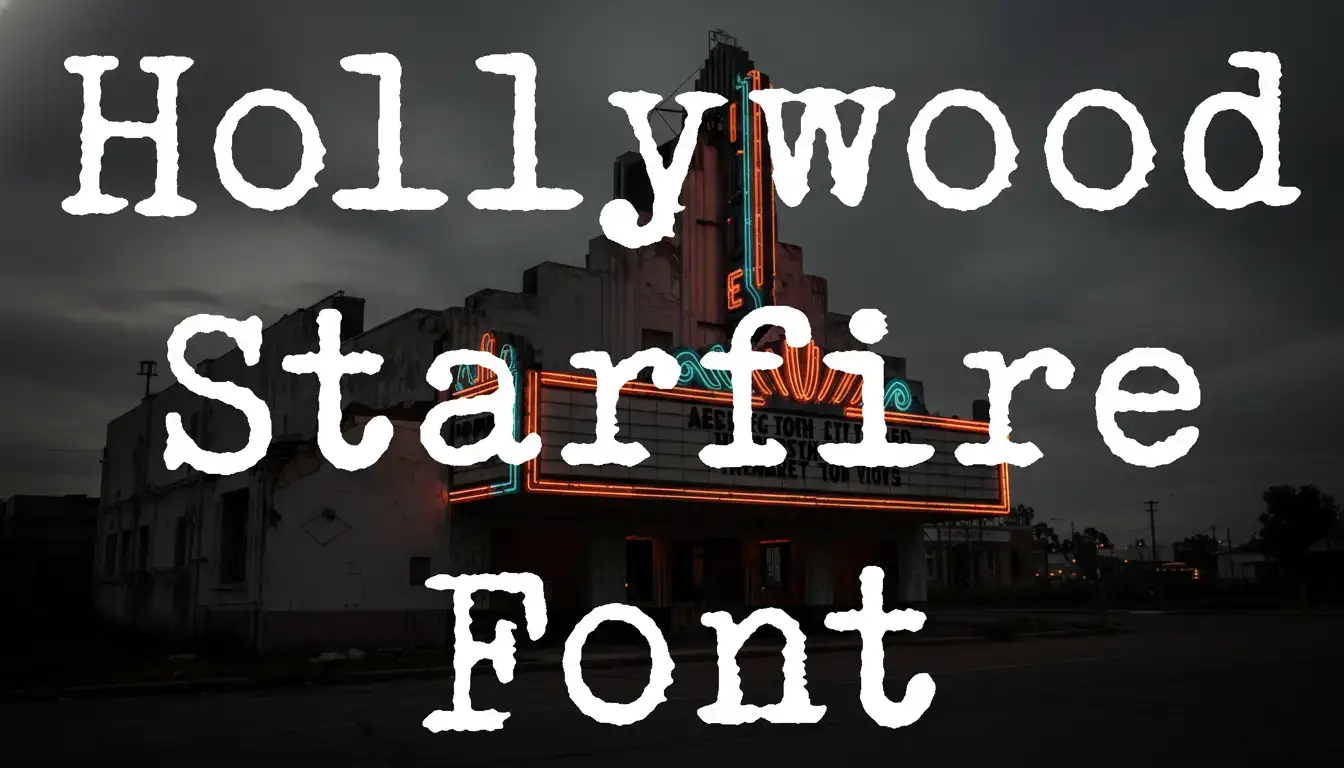
Hollywood Starfire Font
Hollywood Starfire Font Preview
Hollywood Starfire
Hollywood Starfire Character Map
Hollywood Starfire Font Details
What You Can Type With Hollywood Starfire
Hollywood Starfire covers the full alphabet in upper and lowercase, plus all ten numbers, so you can set names, dates and prices without switching fonts. Everyday marks like &, !, ? and @ are there too. Thanks to its accented letters, it also works for Spanish, French, German, Portuguese and Italian, not just English.
Where Hollywood Starfire Works Best
Designers usually reach for fonts like Hollywood Starfire when they're making posters, logos and eye-catching headlines. Use it for one standout word or headline and let simpler fonts handle the rest.
Does Hollywood Starfire support accented letters?
Yes. Hollywood Starfire includes the accented letters needed for Spanish, French, German, Portuguese and Italian, so it works for more than just English.